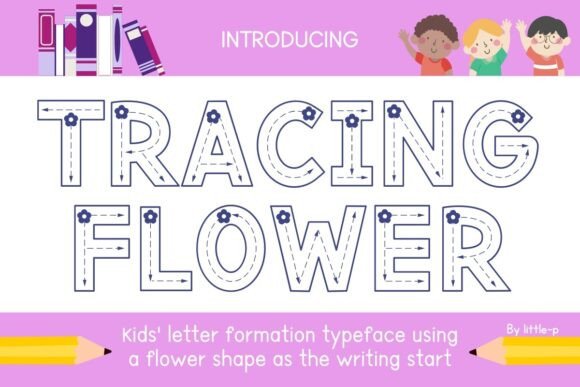
Tracing Flower Font: A Charming Alphabet Tracing Font for Young Learners
Learning the alphabet can be a daunting task for young learners, but with the right tools, it can be a fun and engaging experience. Introducing the “Tracing Flower” font, a charming alphabet tracing font designed to make learning fun and interactive for children. This unique font features a flower shape as the starting point for each letter, making it easier for kids to recognize and trace each character.
What is Tracing Flower Font?
Tracing Flower is a specially designed font that combines a playful and cute approach to teaching letter formation. Each letter of the alphabet is formed using a flower shape, making it easy for young learners to recognize and replicate. The font is perfect for worksheets, study materials, homeschooling, and educational media for kindergarten and elementary students.
Features of Tracing Flower Font
- Unique Design: Each letter is formed with a flower shape as the starting point, making it easier for children to recognize and trace each character.
- Cute and Playful: The font features a charming and playful design that will engage young learners and make learning fun.
- Perfect for Letter Formation: The font is ideal for practicing letter formation, boosting letter recognition skills, and encouraging early handwriting development.
- Suitable for Various Educational Materials: Tracing Flower font is perfect for worksheets, study materials, homeschooling, and educational media for kindergarten and elementary students.
Benefits of Using Tracing Flower Font
The Tracing Flower font offers several benefits for young learners, including:
- Improved Letter Recognition: The unique design of the font helps children recognize and remember letters more effectively.
- Enhanced Handwriting Skills: The font encourages early handwriting development and helps children develop their fine motor skills.
- Boosted Confidence: The fun and engaging design of the font helps build confidence in young learners, making them more enthusiastic about learning.
- Easier Learning: The Tracing Flower font makes learning fun and interactive, making it easier for children to absorb and retain information.
How to Use Tracing Flower Font
The Tracing Flower font can be used in a variety of educational materials, including:
- Worksheets: Create engaging worksheets that help children practice letter formation and recognition.
- Study Materials: Use the font to create study materials that make learning fun and interactive.
- Homeschooling: The font is perfect for homeschooling, providing a fun and engaging way to teach children the alphabet.
- Educational Media: Use the font to create educational media, such as posters, charts, and flashcards, that make learning fun and interactive.
Why Teachers and Parents Love Tracing Flower Font
Teachers and parents love the Tracing Flower font because it:
- Makes Learning Fun: The font makes learning fun and engaging, making it easier for children to absorb and retain information.
- Saves Time: The font provides a quick and easy way to create educational materials, saving teachers and parents time and effort.
- Is Easy to Use: The font is easy to use and can be incorporated into a variety of educational materials.
- Fosters Creativity: The font encourages creativity and imagination, making it a valuable tool for teachers and parents.
The Tracing Flower font is a charming and engaging alphabet tracing font that makes learning fun and interactive for young learners. With its unique design, cute and playful approach, and ease of use, it’s an essential tool for teachers and parents alike. Whether you’re creating worksheets, study materials, or educational media, the Tracing Flower font is the perfect choice for fostering learning in a creative and enjoyable way.